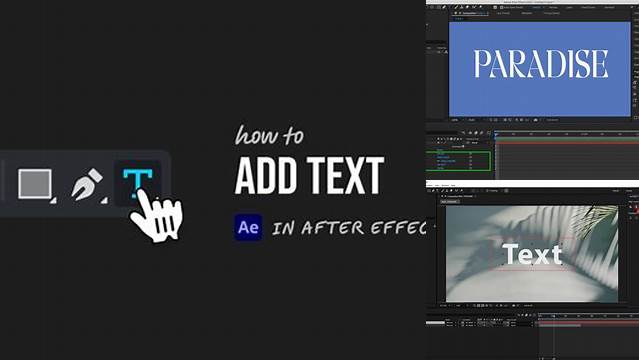
Add Fonts To After Effects: A Simple Guide
Hey guys! Ever felt like your After Effects projects are missing that special something? Chances are, the right font could be the missing piece! Knowing how to add text fonts to After Effects can seriously level up your motion graphics game. It's not as scary as it sounds, trust me. This guide will walk you through everything you need to know, from finding awesome fonts to installing them and using them in your projects. Let's dive in!
1. Understanding Font Types for After Effects
Before we jump into the nitty-gritty of installation, let's chat about font types. Knowing the difference between them is key to ensuring smooth sailing in After Effects. When figuring out how to add text fonts to After Effects, you'll quickly realize there are a couple of main contenders: TrueType Fonts (.ttf) and OpenType Fonts (.otf). TrueType fonts are the OGs, the classic font format that's been around for ages. They're generally compatible with most systems, which is a big plus. But OpenType fonts are the cool kids on the block. They're more versatile, often containing more glyphs (those fancy extra characters) and advanced typographic features. Think swashes, ligatures, and alternate character sets β the things that make your text look extra polished. OpenType fonts also handle scaling better, so your text stays crisp and clear even at larger sizes. Plus, they're cross-platform friendly, meaning they work like a charm on both Windows and macOS. So, when you're searching for new fonts, keep an eye out for both .ttf and .otf formats. They'll both work in After Effects, but OpenType fonts often give you that extra bit of finesse.
2. Finding Free Fonts for After Effects
Alright, let's talk about finding some killer fonts without breaking the bank. Figuring out how to add text fonts to After Effects is only half the battle; you need some awesome fonts to add in the first place! The good news is, the internet is overflowing with free fonts β you just need to know where to look. A great starting point is Google Fonts. It's a massive library of open-source fonts that are completely free for personal and commercial use. You can easily browse through different styles, preview them, and download them directly to your computer. Another fantastic resource is Dafont. It's a treasure trove of user-submitted fonts, ranging from script fonts to display fonts to everything in between. Just be sure to check the license for each font, as some are only free for personal use. Websites like Font Squirrel and Behance also offer a curated selection of high-quality free fonts. Font Squirrel is particularly good for finding fonts that are optimized for web use, which can be handy if you're creating motion graphics for online platforms. And Behance, Adobe's creative platform, often features free font giveaways from talented designers. So, don't be shy β explore these resources and build up your font library. You'll be amazed at the variety of amazing fonts you can find without spending a dime. Remember to always download fonts from reputable sources to avoid any dodgy files or copyright issues. Happy font hunting!
3. Best Websites to Download After Effects Fonts
Now, let's dive deeper into the best places online to snag some fantastic fonts for your After Effects projects. We touched on a few earlier, but let's really break down why these websites are so awesome. Understanding how to add text fonts to After Effects goes hand in hand with knowing where to find those fonts, right? First up, let's revisit Google Fonts. This is a powerhouse for a reason. The sheer volume of fonts is incredible, and the best part is they're all completely free and open-source. You can filter by categories like serif, sans-serif, handwriting, and more, making it easy to find the perfect vibe for your project. Plus, the preview feature lets you see exactly how the font will look in different sizes and styles. Dafont is another major player in the free font game. It's a bit more of a mixed bag in terms of quality, but that's also what makes it so exciting. You can find some truly unique and quirky fonts here that you won't find anywhere else. Just remember to double-check the license before using a font in a commercial project. Font Squirrel is a gem for finding fonts that are specifically designed for web use. This is super important if you're creating motion graphics for online videos or websites. Their fonts are typically well-optimized and look great on screens of all sizes. And finally, don't forget about Adobe Fonts (formerly Typekit), which is included with your Adobe Creative Cloud subscription. This gives you access to a massive library of professional-quality fonts that are seamlessly integrated with After Effects. The selection is top-notch, and you can be confident that you're using legally licensed fonts. So, there you have it β a handful of amazing resources to kickstart your font collection. Happy downloading!
7. Troubleshooting Font Issues in After Effects
Okay, let's be real β sometimes things don't go exactly as planned. You might install a font, fire up After Effects, andβ¦ nothing. Don't panic! Troubleshooting font issues is a common part of the process when learning how to add text fonts to After Effects. Let's walk through some common problems and how to fix them. First, the most obvious one: did you restart After Effects? Sometimes, After Effects just needs a little nudge to recognize newly installed fonts. Close the program completely and reopen it. If that doesn't work, try restarting your computer. This can help clear the font cache and ensure that the font is properly loaded. Another common issue is font corruption. If a font file is damaged, it might not install correctly or might cause After Effects to crash. Try downloading the font again from a different source, or try a different font altogether. If you're using Adobe Fonts, make sure you're logged into your Creative Cloud account and that the fonts are activated. Sometimes, the activation process can get stuck, so try deactivating and reactivating the font. Also, double-check that the font format is compatible with After Effects. As we discussed earlier, .ttf and .otf fonts are the way to go. If you're still having trouble, try clearing your After Effects preferences. This can sometimes resolve conflicts caused by outdated settings. To do this, hold down Ctrl+Alt+Shift (Windows) or Command+Option+Shift (macOS) while launching After Effects. You'll see a dialog box asking if you want to delete your preferences β click "OK." Finally, if all else fails, try searching the Adobe support forums or reaching out to their customer support team. They've seen it all and can usually help you pinpoint the problem. Font issues can be frustrating, but with a little patience and troubleshooting, you'll get things sorted out!
8. Why Your Font Isn't Showing Up in After Effects
Let's dig a little deeper into why your font might be playing hide-and-seek in After Effects. We touched on some troubleshooting tips earlier, but let's get specific. Understanding the reasons why a font isn't showing up is crucial for mastering how to add text fonts to After Effects seamlessly. One of the most common culprits is the font cache. Your computer keeps a cache of font information to speed things up, but sometimes this cache can get corrupted or outdated. When this happens, After Effects might not recognize newly installed fonts. To clear the font cache on Windows, you can try using a font management tool or manually deleting the font cache files. On macOS, Font Book has a built-in feature to clear the cache. Another potential issue is font format incompatibility. While After Effects supports both .ttf and .otf fonts, sometimes a specific font file might be corrupted or not properly formatted. Try downloading the font again from a different source, or try a different font in the same style. If you're using Adobe Fonts, make sure the fonts are properly synced and activated. Sometimes, the Creative Cloud app can have syncing issues, so try signing out and signing back in. Also, check your internet connection, as Adobe Fonts requires an active connection to download and activate fonts. Another thing to consider is font naming conflicts. If you have multiple fonts with the same name installed, After Effects might get confused. Try uninstalling any duplicate fonts or renaming the conflicting fonts. Finally, make sure you're actually looking in the right place in After Effects. The font menu can be a bit overwhelming, so double-check that you're not filtering by a specific font style or classification. Sometimes, the font is there, but you're just not seeing it because of the filter settings. Don't worry, font mysteries can be solved with a little detective work!
9. Font Management Tips for After Effects
Okay, you're installing fonts like a pro, but let's talk about font management. A messy font library can quickly become a headache, especially when you're working on complex After Effects projects. Mastering how to add text fonts to After Effects is just the beginning; keeping things organized is the next level. First and foremost, create a consistent naming convention for your fonts. This will make it much easier to find the font you're looking for in the After Effects font menu. Consider using a system that includes the font family, style, and any other relevant information. For example, instead of just "MyFont," you might use "MyFont-Bold-Italic." Next, organize your font files into folders. Create separate folders for different font families, styles, or project types. This will make it much easier to browse your font collection when you're installing new fonts or troubleshooting issues. If you're a heavy font user, consider using a font management tool. There are several software programs available that can help you organize, activate, and deactivate fonts with ease. These tools often have features like font previews, conflict detection, and the ability to create font sets for specific projects. Another tip is to regularly cull your font library. Over time, you'll likely accumulate a lot of fonts that you never use. Get rid of the clutter by uninstalling fonts that you don't need. This will not only free up space on your computer but also make it easier to find the fonts you actually use. Finally, be mindful of font licenses. Make sure you're only using fonts that you're legally allowed to use, especially in commercial projects. Keep track of the licenses for each font, and avoid using fonts that have restrictive licenses. Font management might seem like a minor detail, but it can save you a lot of time and frustration in the long run. A well-organized font library is a happy font library!
11. Finding the Perfect Font Pairing for After Effects
Fonts don't live in isolation! Just like in life, they often work best when they have a friend. Choosing the right font pairing can elevate your After Effects projects from good to amazing. So, when we're talking about how to add text fonts to After Effects, we're also talking about how to combine them effectively. The key to a great font pairing is contrast. You want to choose fonts that complement each other but also have distinct personalities. A classic pairing is a serif font for headings and a sans-serif font for body text. Serif fonts (like Times New Roman or Georgia) have those little